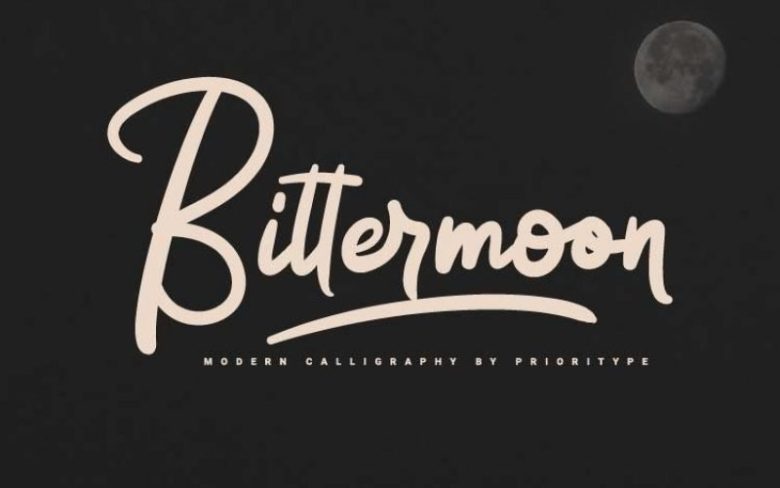
Bittermoon Font
Modern script font with an elegant and captivating concept. You can use it in designs such as logos, photographer watermarks, business cards, creative posts, branding, business, wedding invitations, crafts and many more because they have interesting features and characters. See some of the previews above for reference.